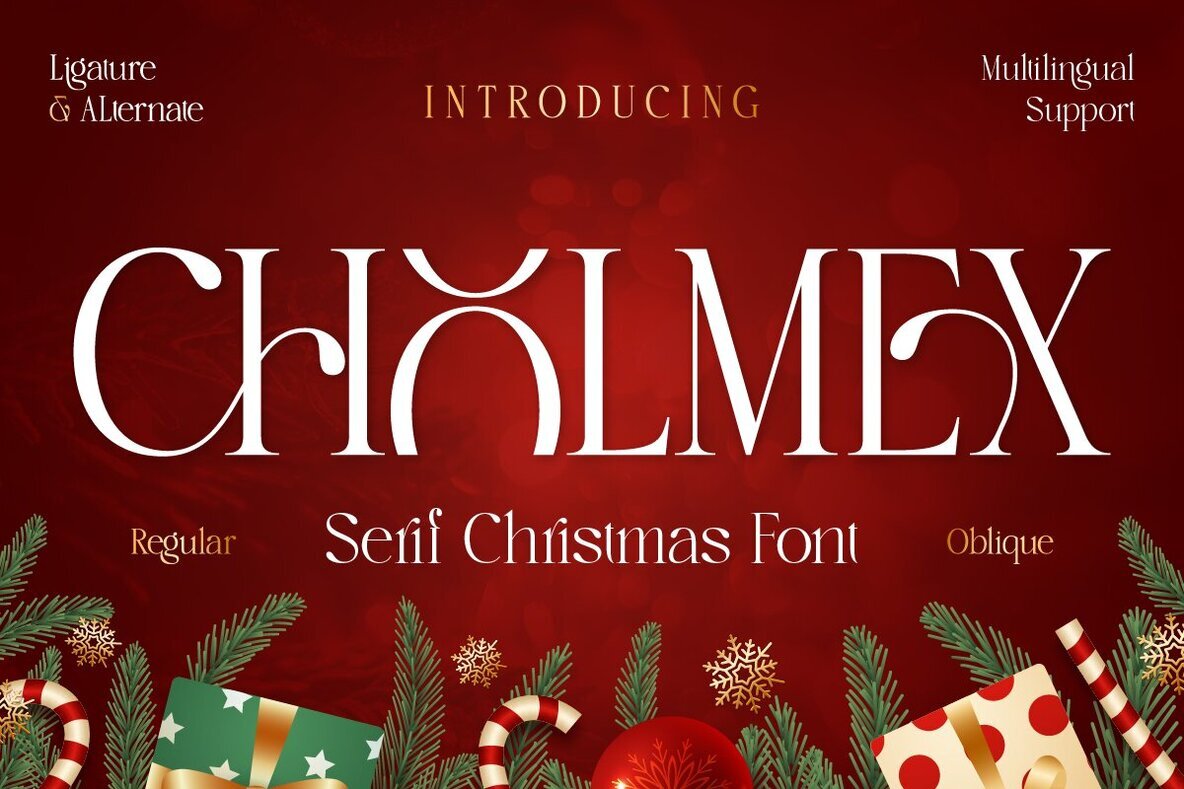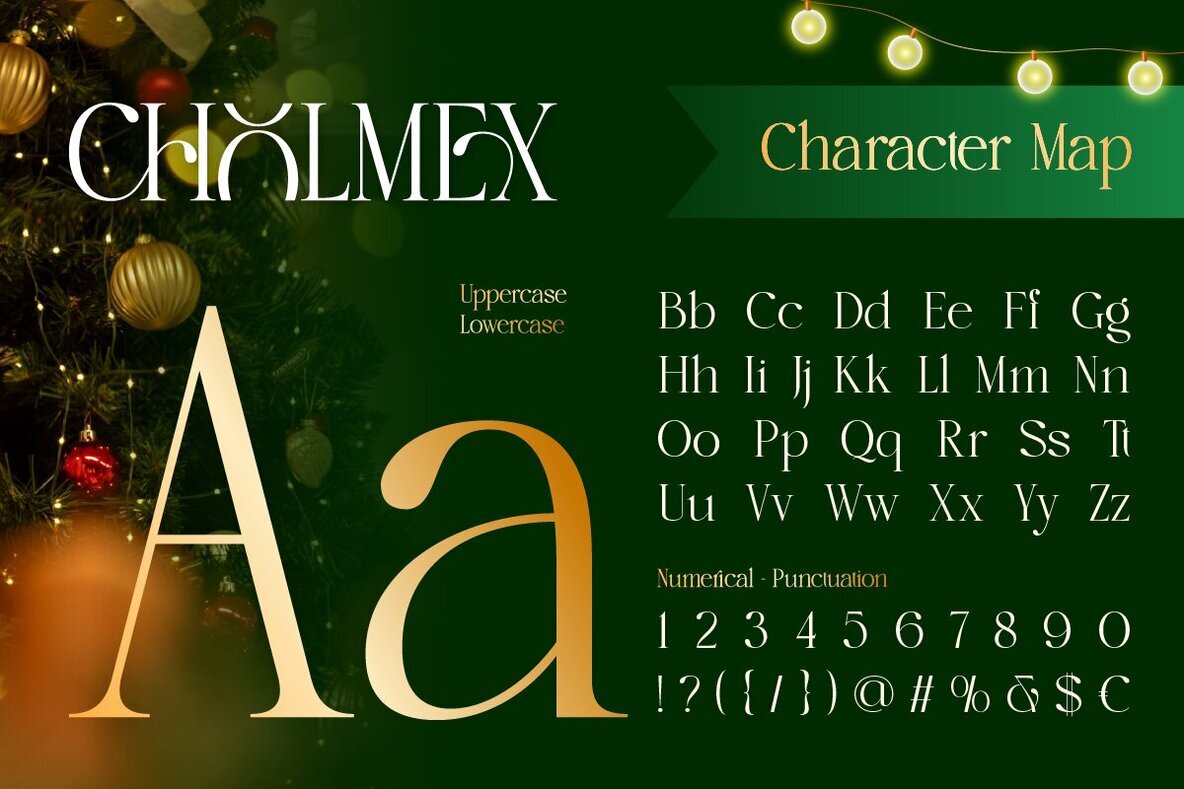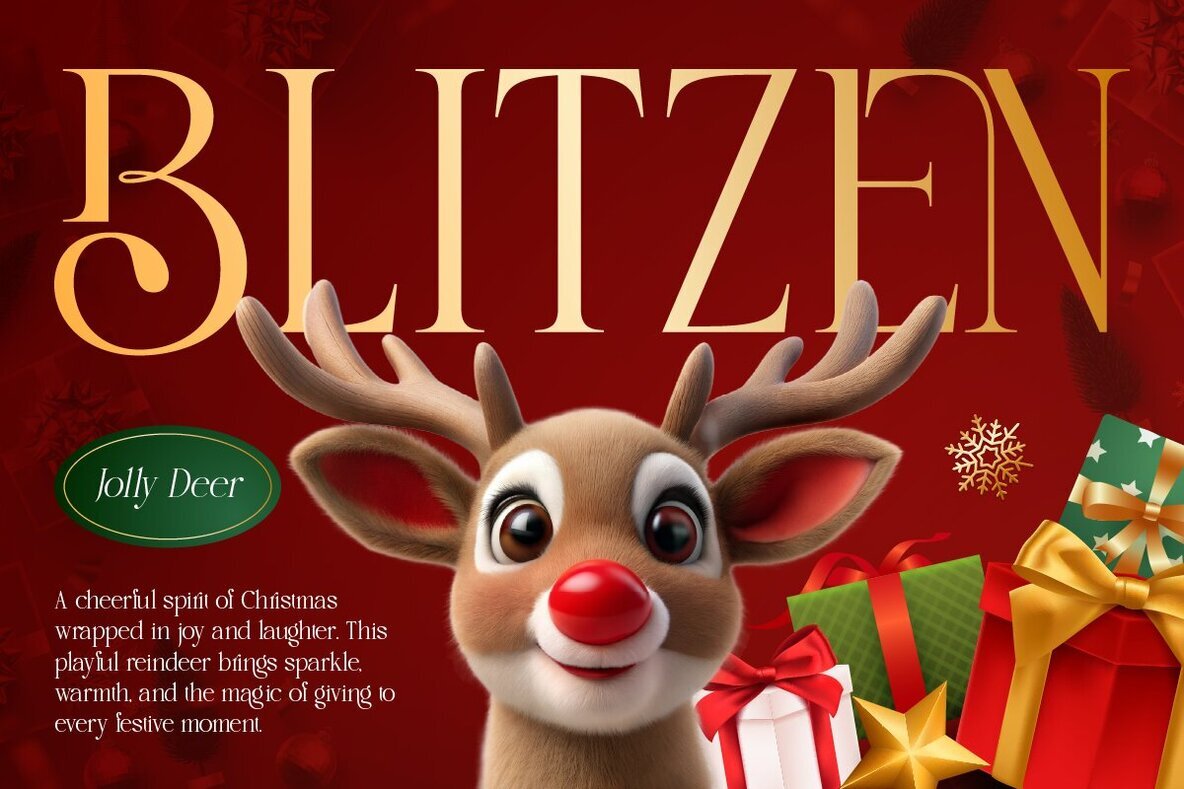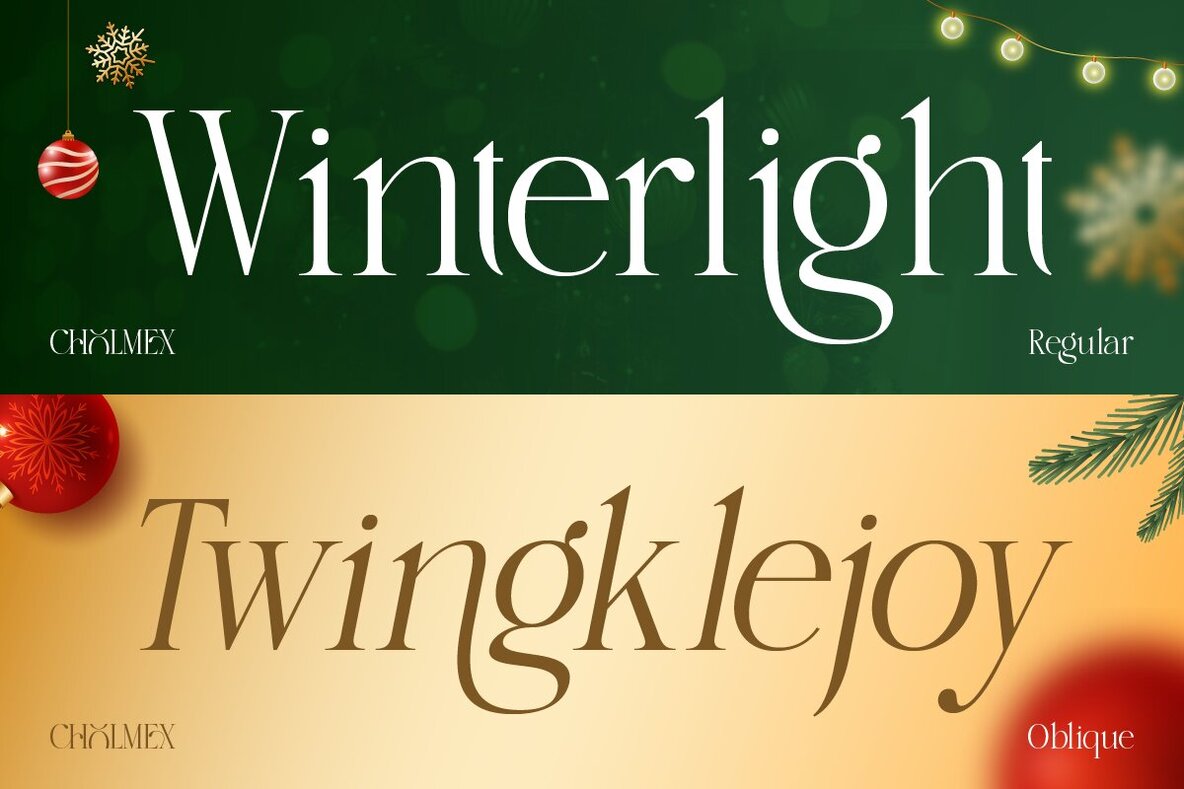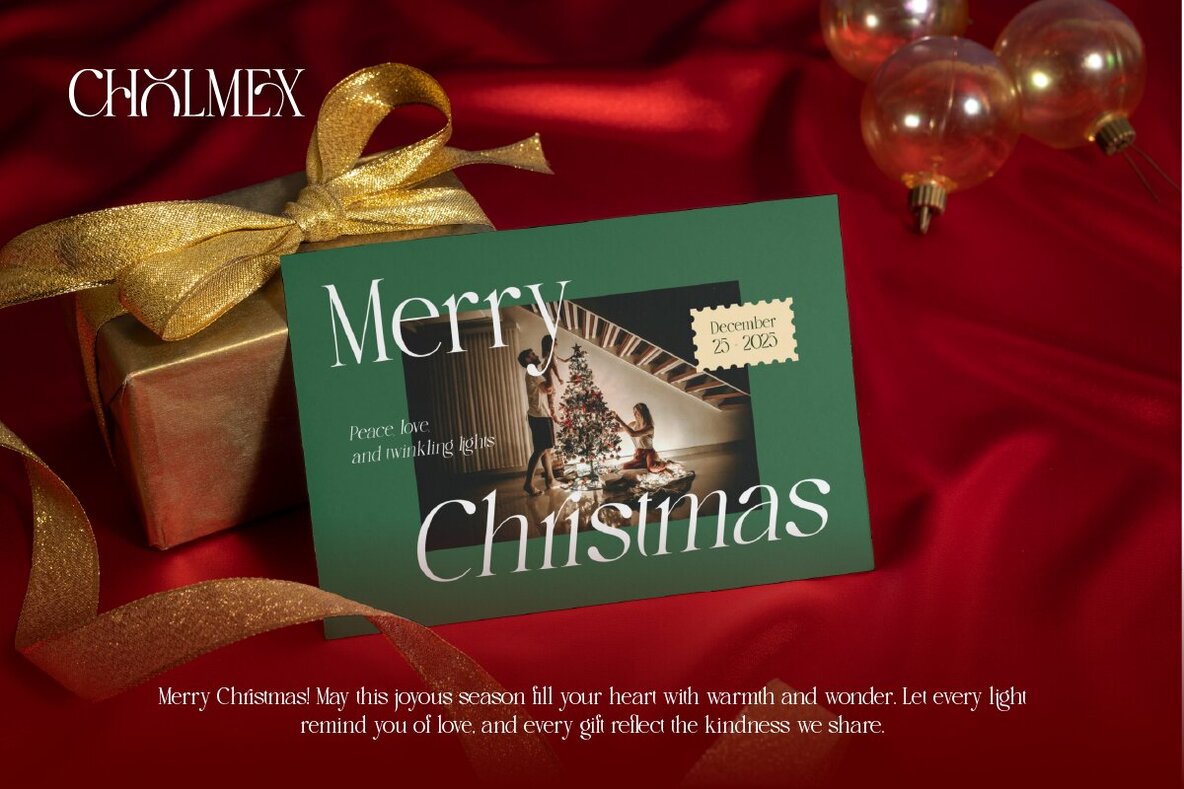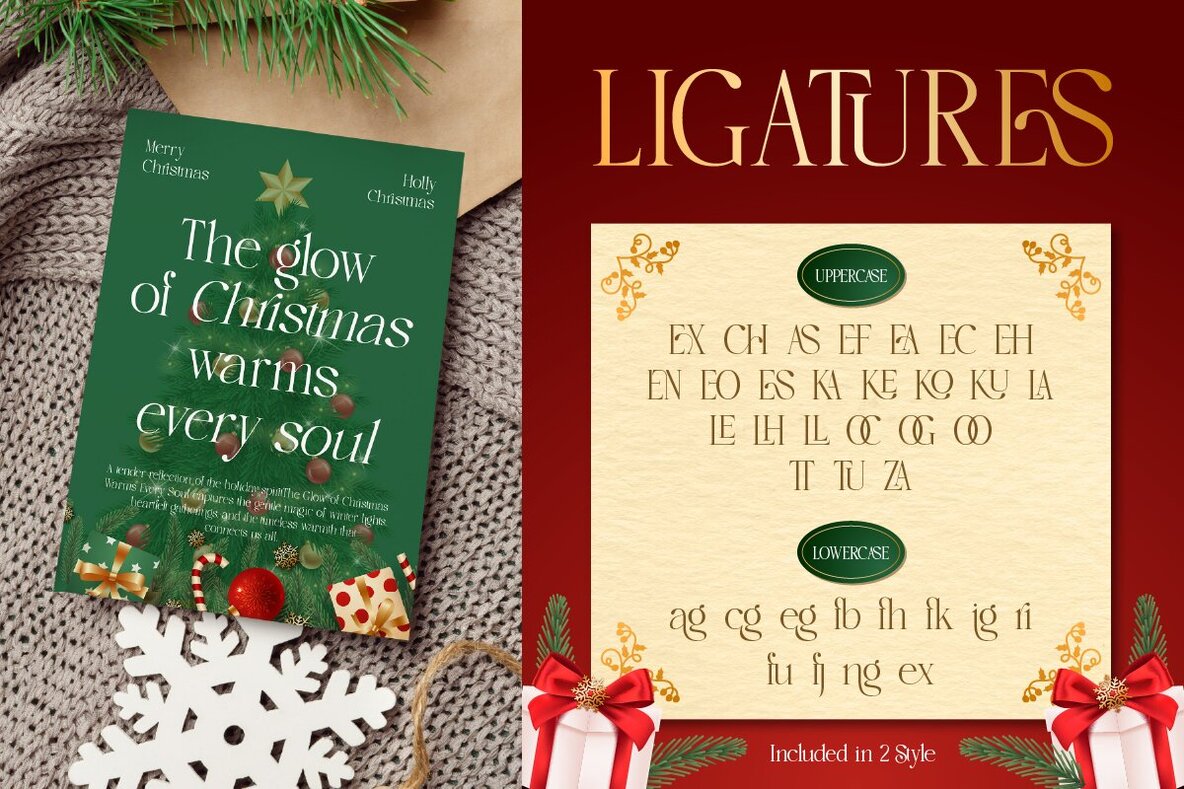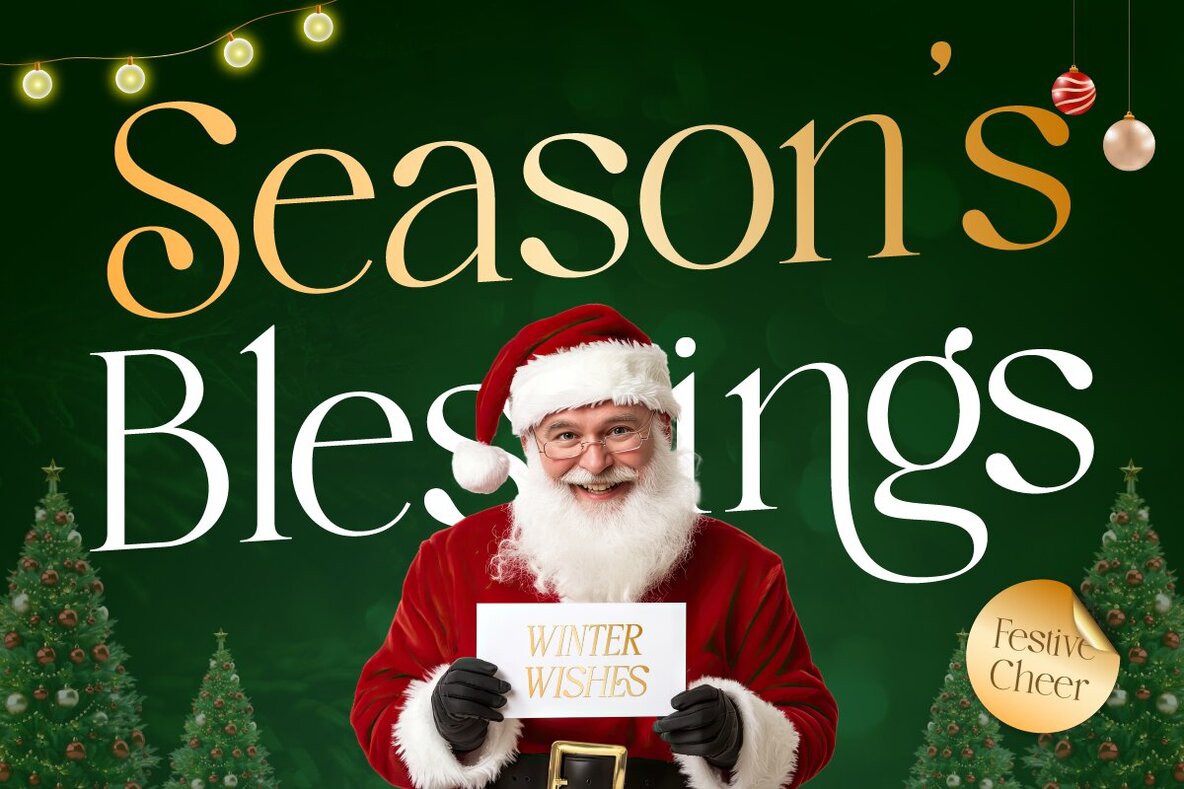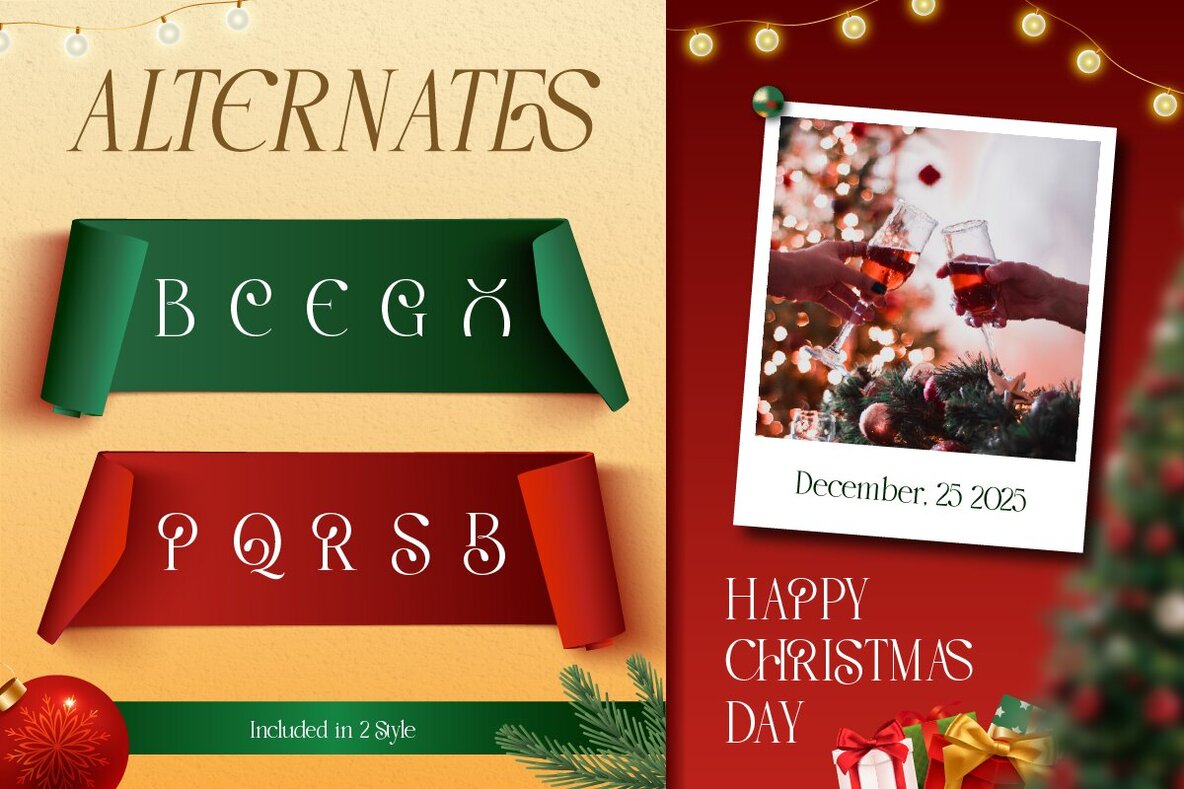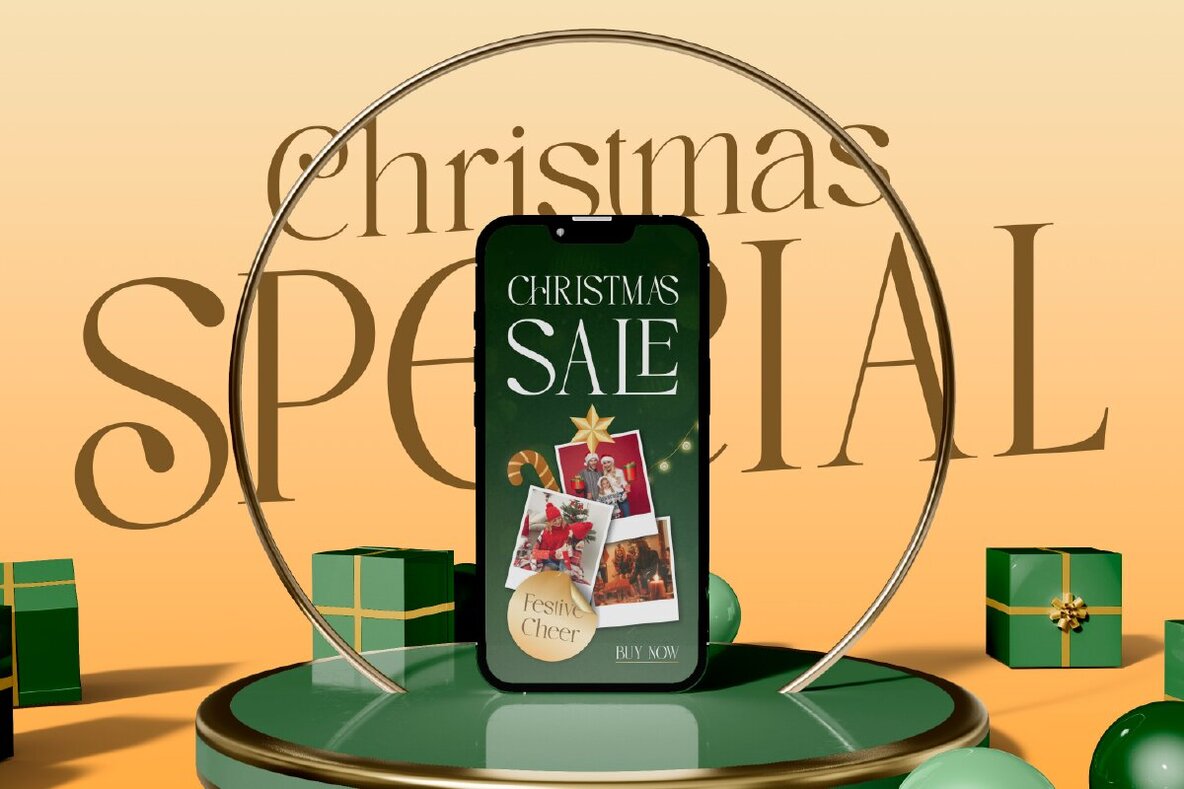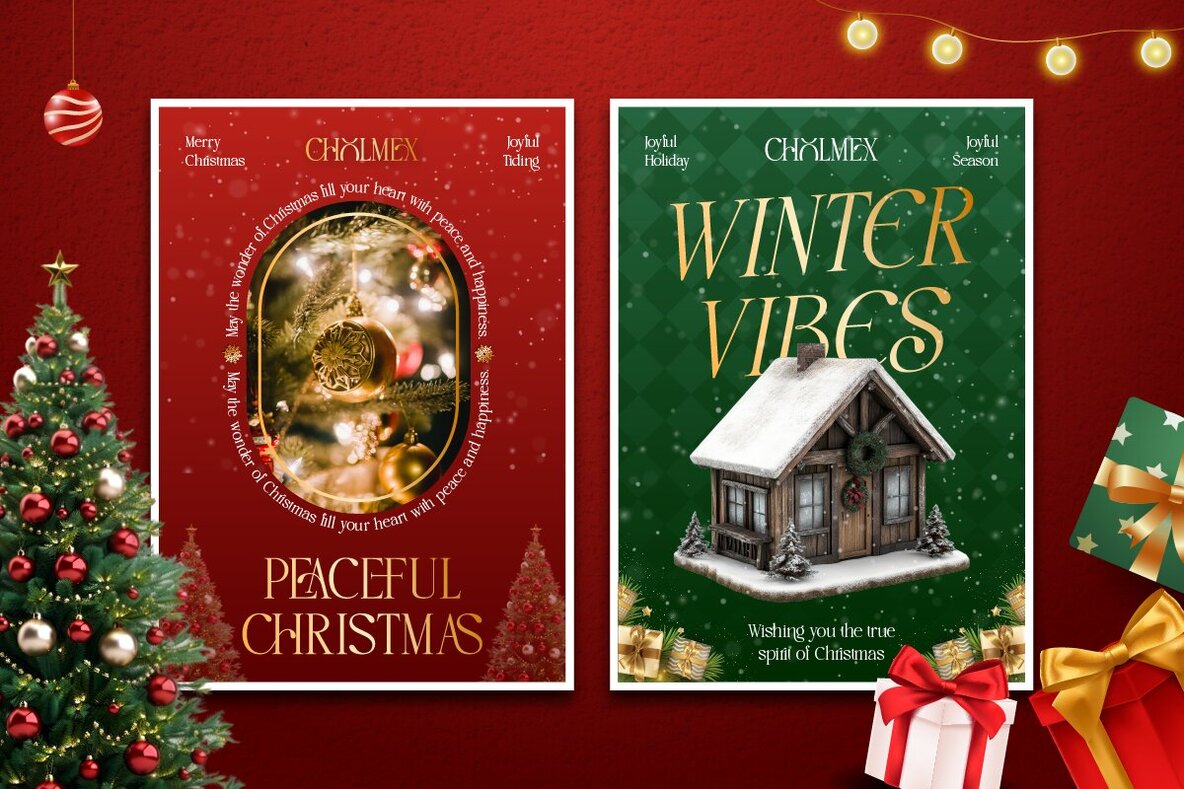
Cholmex Font
Cholmex Regular
Cholmex Oblique
Cholmex introduces an elegant touch to seasonal design, blending classic serif structure with refined decorative details. Its timeless style complements formal invitations and greeting cards, adding subtle sophistication to holiday projects. Cholmex stands out as a practical choice for designers looking to create memorable, festive typography. The carefully balanced letterforms and unique embellishments provide versatility across a range of applications. This makes Cholmex suitable for bold titles as well as nuanced accents, ensuring each project receives a polished, festive feel.Cholmex Serif Christmas Font